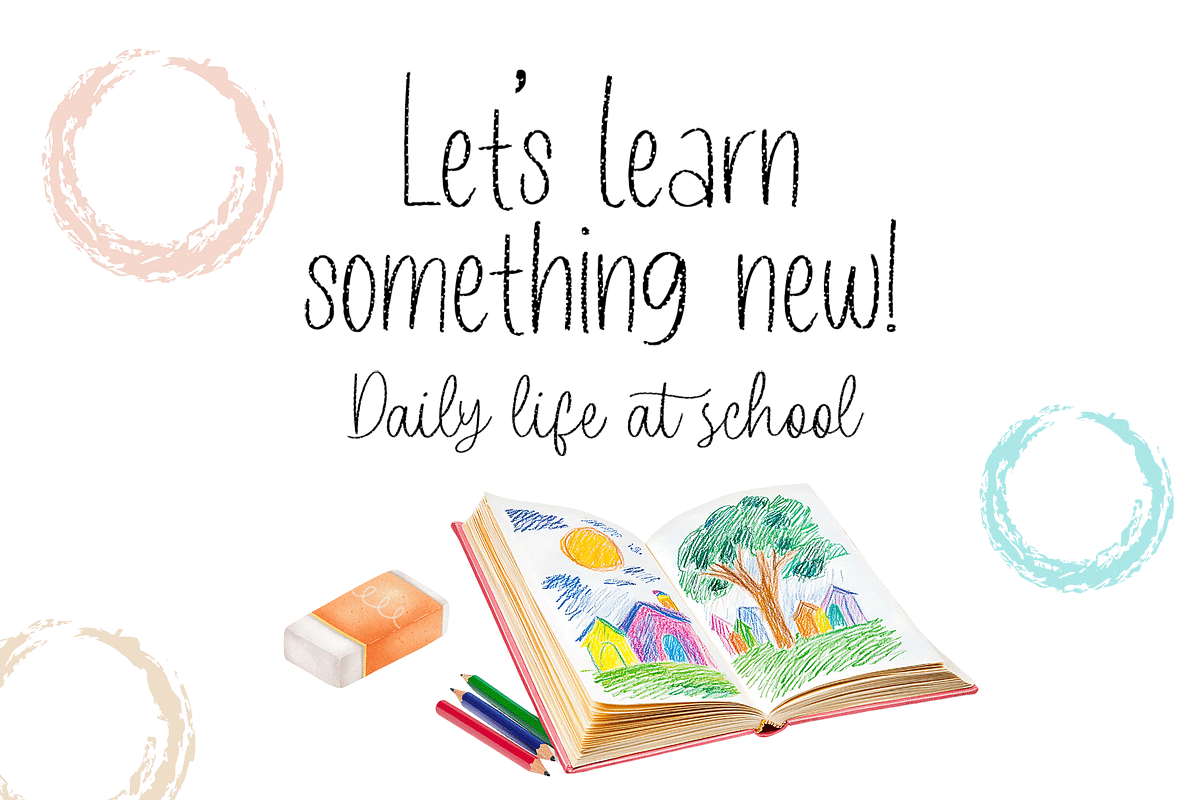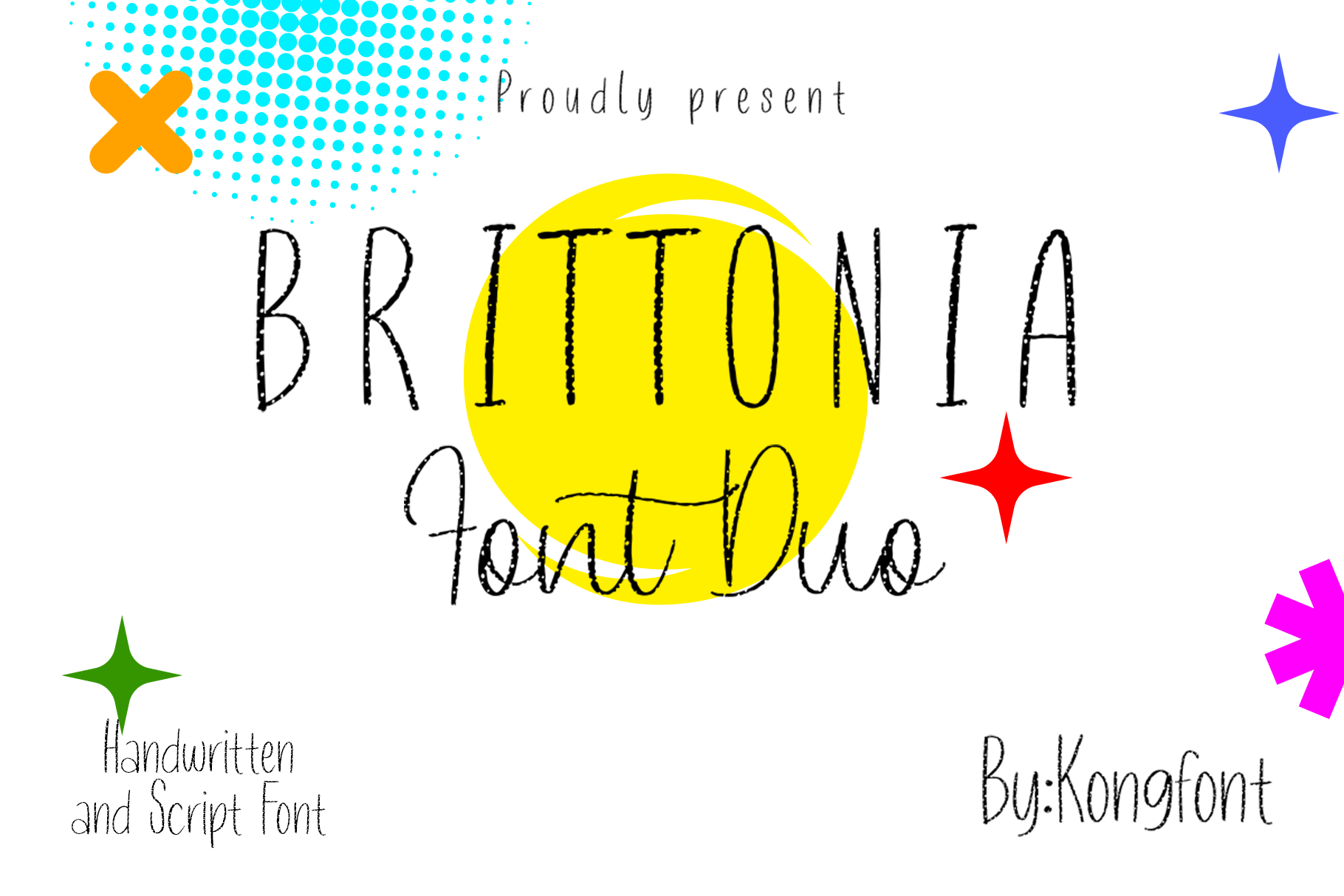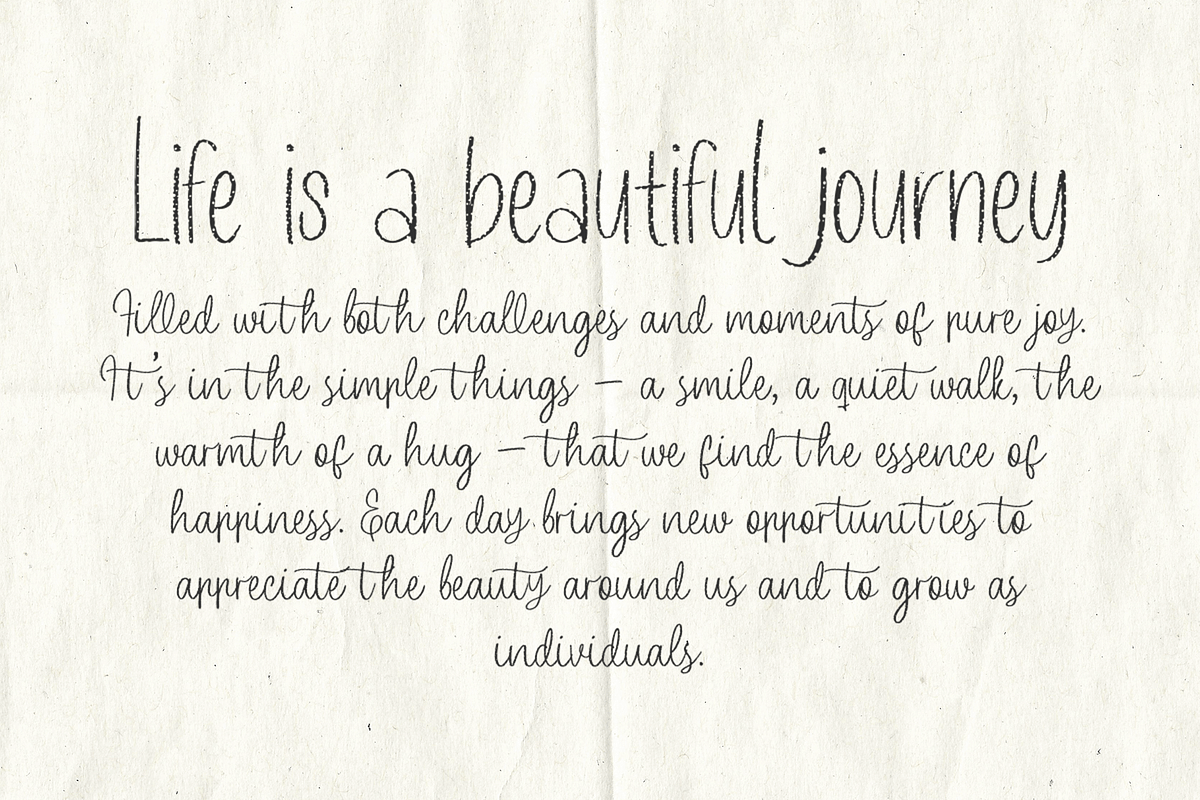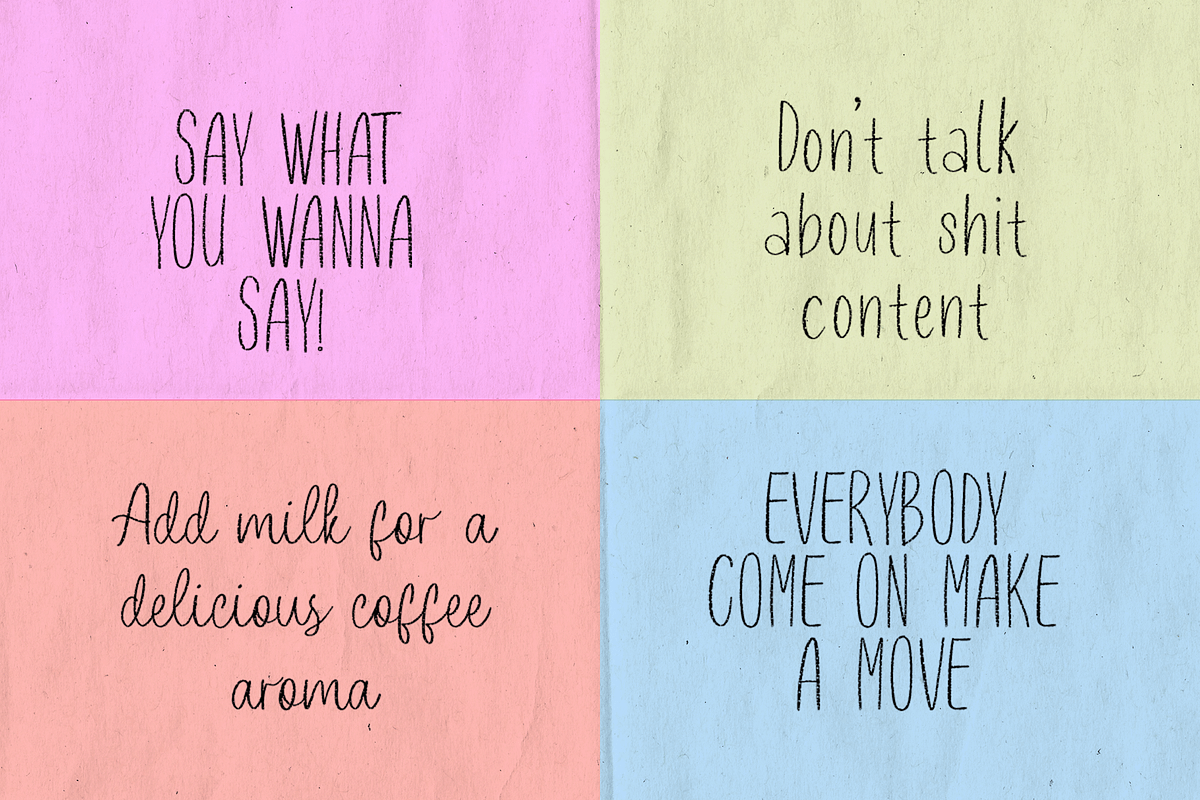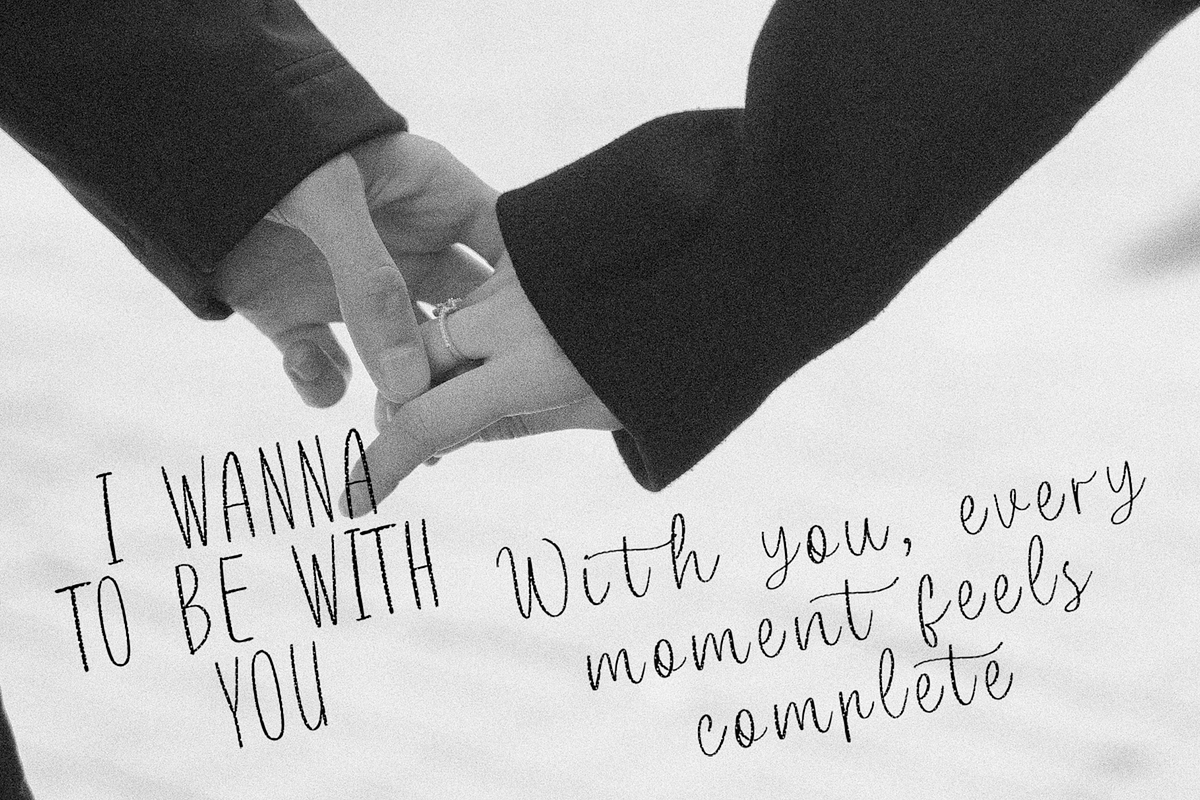
Brittonia Font Duo-HandwrittenScript
Brittonia Font Duo - Handwritten & Script Typeface
Introducing Brittonia Font Duo, a dynamic pairing of a handwritten and script typeface that combines the best of both worlds. Perfect for designs that need a personal touch, this duo offers an effortless balance of free-spirited handwriting and elegant cursive style, creating a harmonious and versatile combination.
The handwritten font adds a natural, casual feel, while the script font brings a sophisticated, flowing elegance to your projects. Whether you're working on branding, invitations, or social media graphics, Brittonia Font Duo ensures your designs stand out with personality and flair.
With an extensive character set that includes uppercase and lowercase letters, numerals, punctuation, and multilingual support, this font duo is designed to meet a wide range of creative needs. Use them together or individually for an endless variety of design possibilities.
Brittonia Font Duo is the perfect solution for adding an authentic yet refined touch to your work.